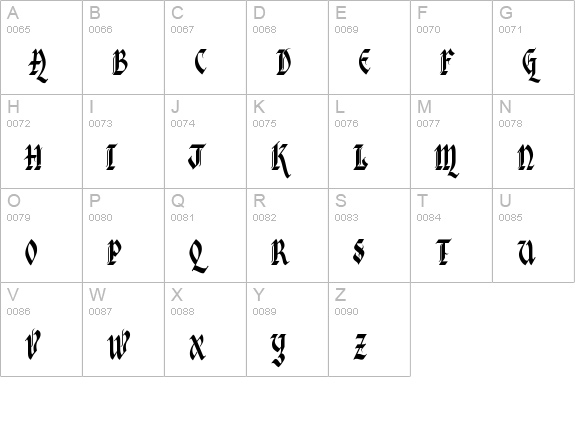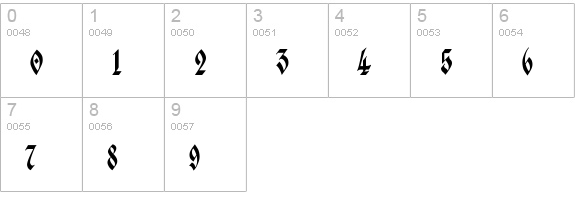
Kingthings Italique is a bold and elegant font that exudes a sense of sophistication and class. Its slanted and stylized letterforms add a touch of uniqueness and charm to any project, making it perfect for headlines, logos, branding materials, and more. This font boasts a perfect balance between modernity and tradition, with its clean lines and graceful curves. Its versatile nature allows it to be used in a wide range of design contexts, from formal business presentations to creative artistic endeavors. Kingthings Italique is a font that commands attention and leaves a lasting impression. One of the best things about Kingthings Italique is that it is freely available to download at FontsMarket.com. This means that you can easily access this exquisite font without any cost or hassle. Whether you're a professional designer or a hobbyist, this font offers you the opportunity to elevate your projects with a touch of elegance and style, without breaking the bank. With its effortless legibility and timeless aesthetic, Kingthings Italique is sure to become a staple in your font collection. Its bold and captivating presence will make your designs stand out and leave a lasting impact on your audience. Embrace the beauty of this font and let it add a touch of sophistication to your creative endeavors. Download Kingthings Italique for free today at FontsMarket.com and experience the power of this remarkable font.